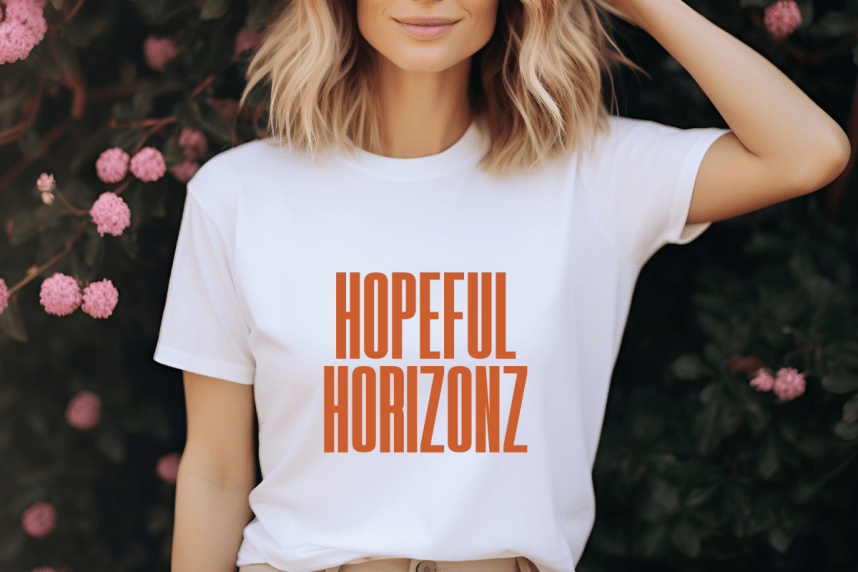
Escape Font is a striking retro condensed sans serif font that blends vintage charm with modern sophistication. Characterized by its exceptionally tall and narrow letterforms, this font is designed to command attention while maintaining a clean and minimalist aesthetic. Whether you’re aiming for a 70s-inspired travel poster or a high-end fashion magazine cover, Escape provides the perfect vertical impact for your designs.
This versatile typeface is a dream for Print On Demand (POD) creators, making it ideal for t-shirts, tote bags, and posters that require bold, readable text in a compact space. Its retro-modern vibe also excels in logo design, cinematic titles, and branding projects that need a touch of nostalgic elegance. Escape comes in OTF and TTF formats and is fully PUA encoded, ensuring you can access all characters effortlessly in any design software.